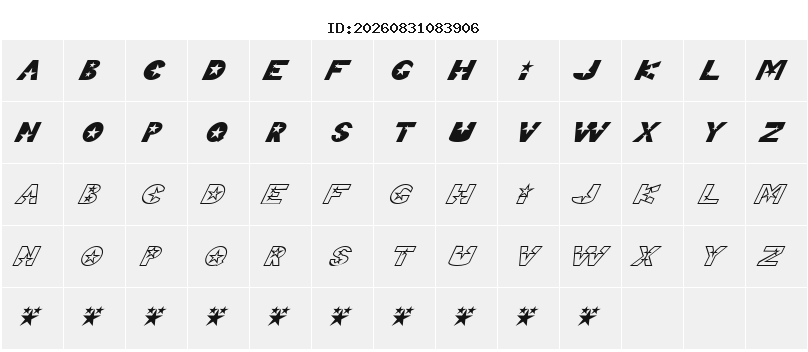
• Font Name: Telemarketing Superstar
• Font ID: Macromedia Fontographer 4.1 Telemarketing Superstar Italic
• Full Font Name: Telemarketing Superstar Italic
• PostScript Name: TelemarketingSuperstarItalic
About Telemarketing Superstar.ttf
Telemarketing Superstar.ttf is a modern, elegant sans-serif font designed for ultimate readability and visual harmony. Perfect for branding, headlines, web design, and print materials.